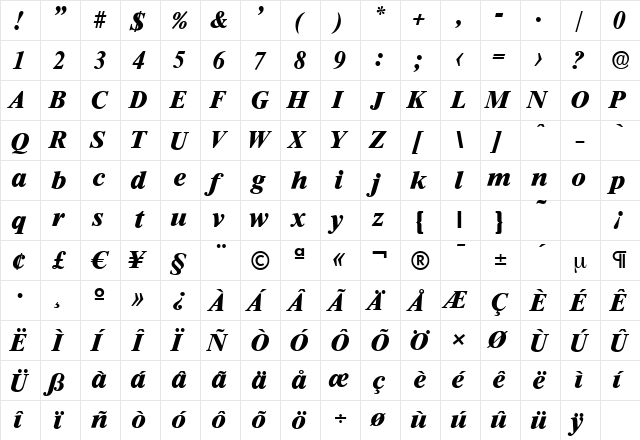
RiccioneSerial-Xbold Italic Font Preview
RiccioneSerial-Xbold Italic
RiccioneSerial-Xbold Italic Font Details
Design Context for RiccioneSerial-Xbold Typeface
RiccioneSerial-Xbold offers clean, dependable letterforms without strong stylistic allegiance, making it a practical choice for designers who need flexibility. The slanted form adds forward momentum and visual energy. The heavy weight commands attention and anchors typographic hierarchies.
Pro Tip: Use RiccioneSerial-Xbold for emphasis, pull quotes, and subheadings where its slanted energy can add rhythm to the layout.